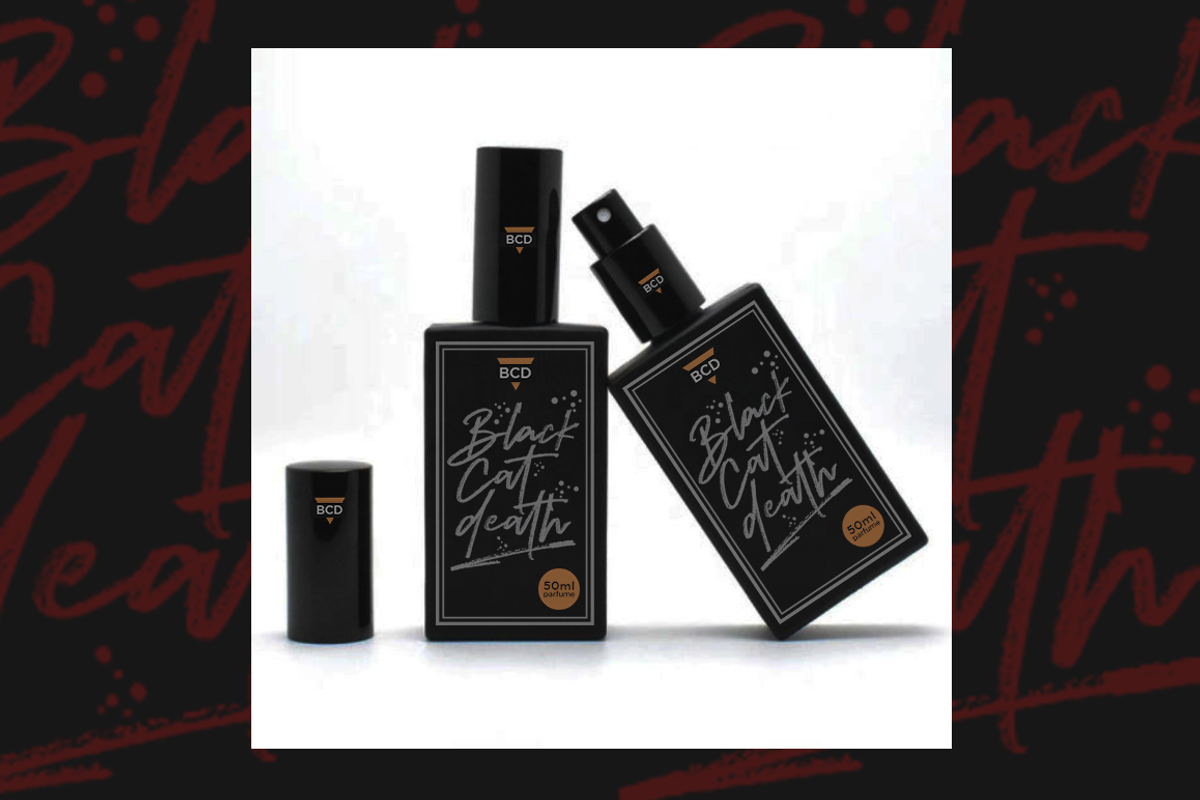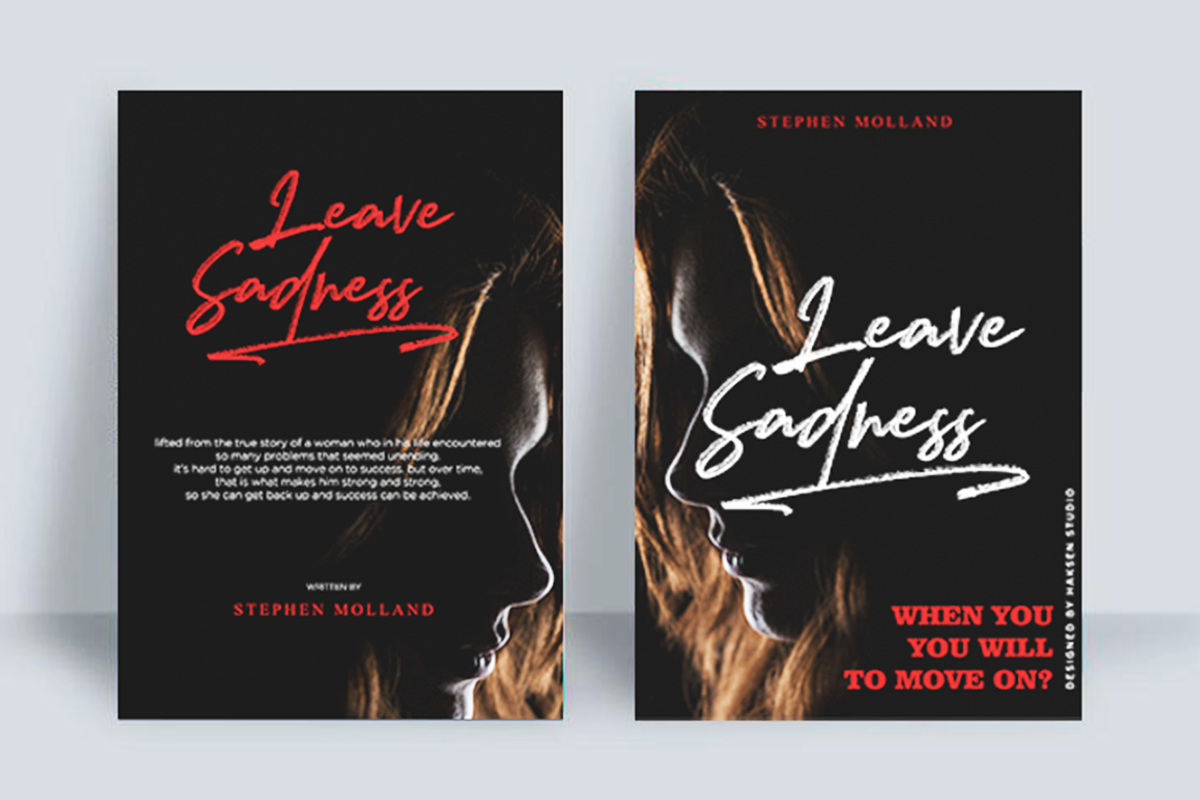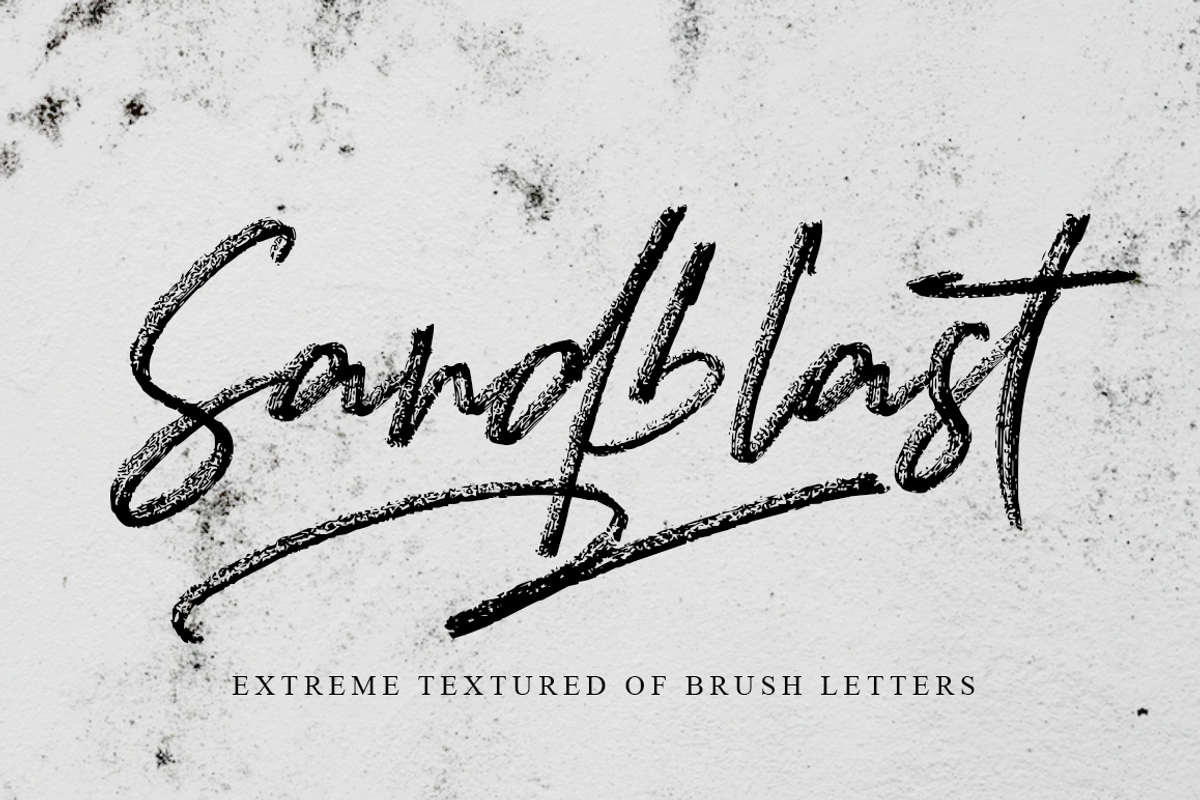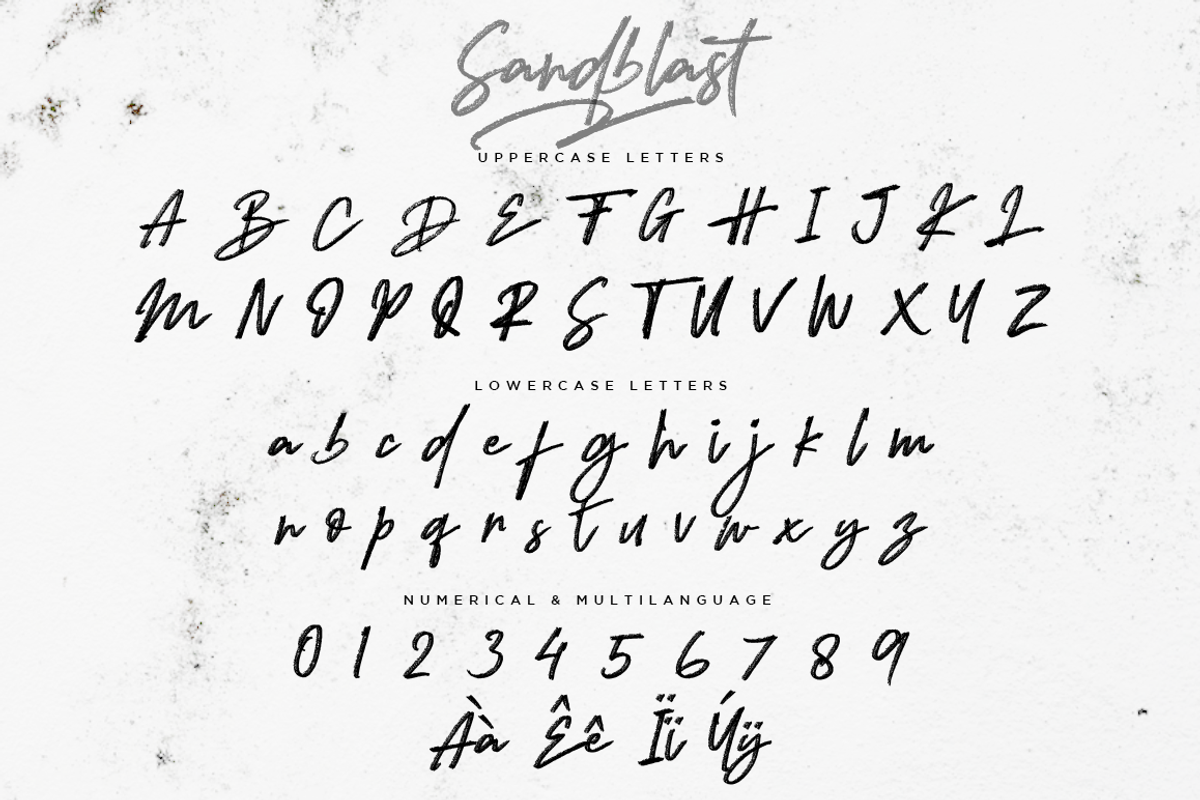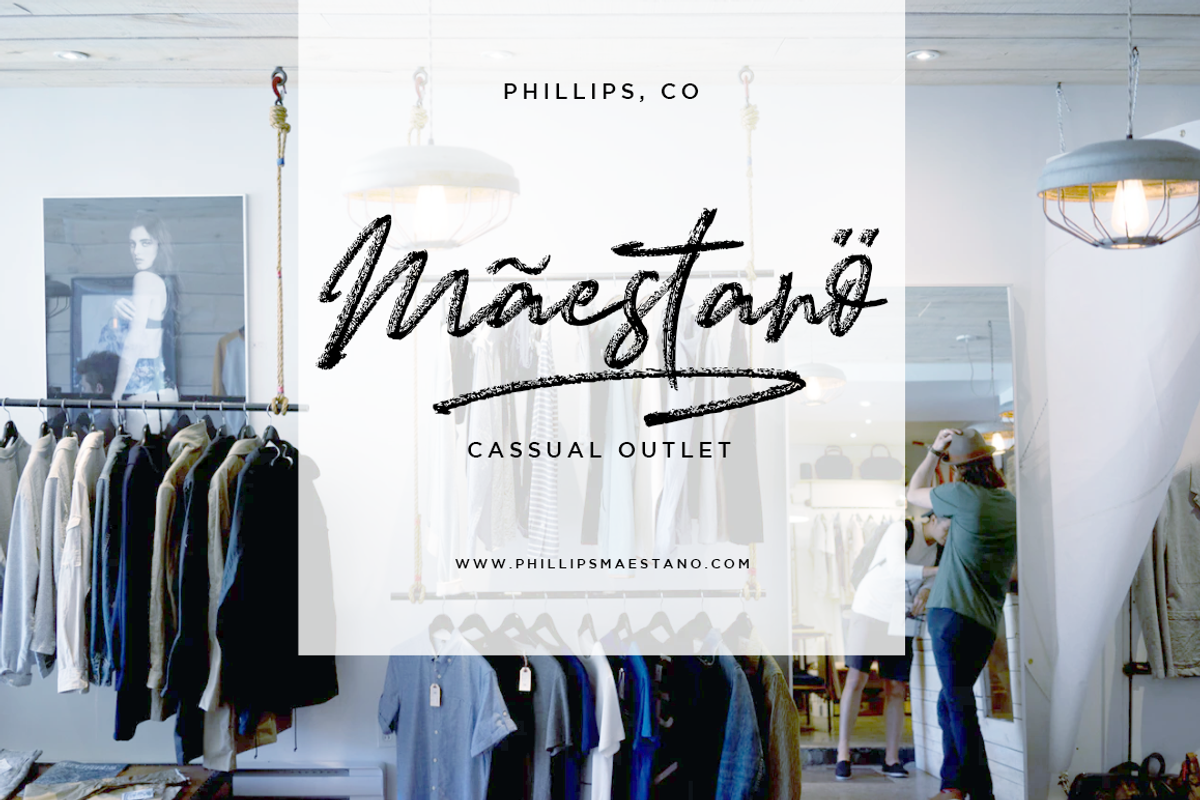
Sandblast Extreme Texture Brush Font
I just launched brush script font in the new collection
Sandblast is a extreme textured for brush script, I design it with real write my hand, I really hope you will enjoy it so much when using this font.
I love using this one with layer masks in Photoshop, really look natural written. Sandblast Script includes over couple ligatures to make everything look totally hand-done.
Sandblast Extreme Texture Brush Font by Haksen fits naturally into Branding, posters, packaging, typography.